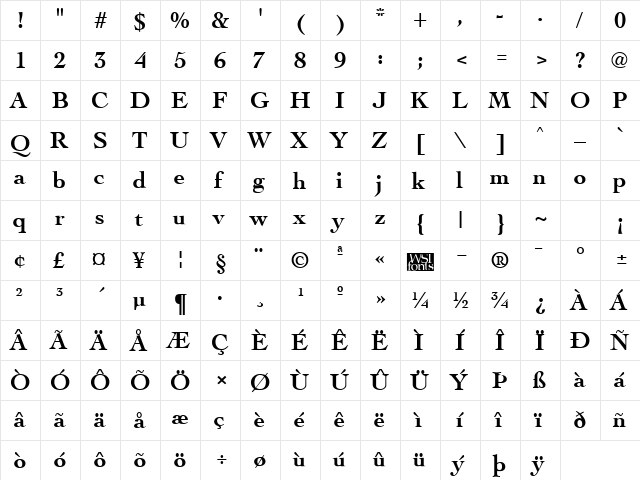
Cocktail Bold Font Preview
Cocktail Bold
Design Context for Cocktail Typeface
Cocktail offers clean, dependable letterforms without strong stylistic allegiance, making it a practical choice for designers who need flexibility. The heavy weight commands attention and anchors typographic hierarchies.